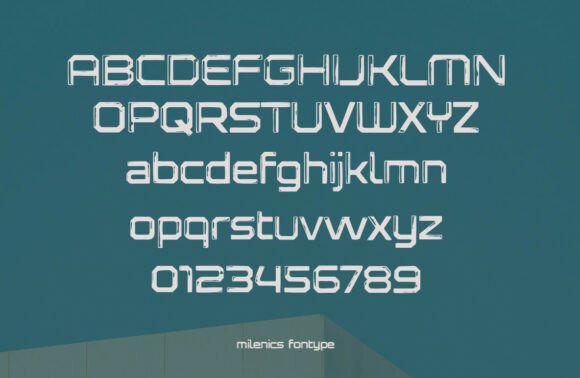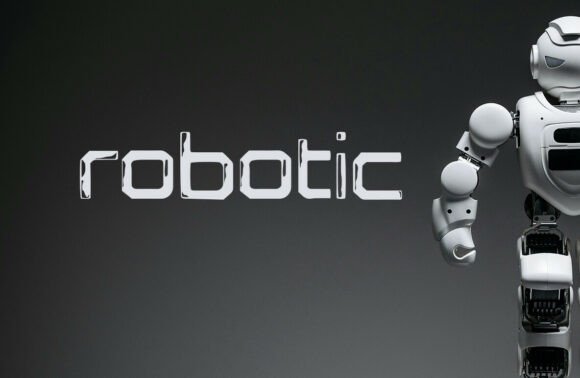
Introduction to Milenics Font
Step into the future with Milenics Font, a typeface that combines sleek geometry with a hi-tech atmosphere.
Designed for clarity and impact, it fits perfectly in robotics, virtual reality, space technology, sports branding, and any project that demands a cutting-edge look .